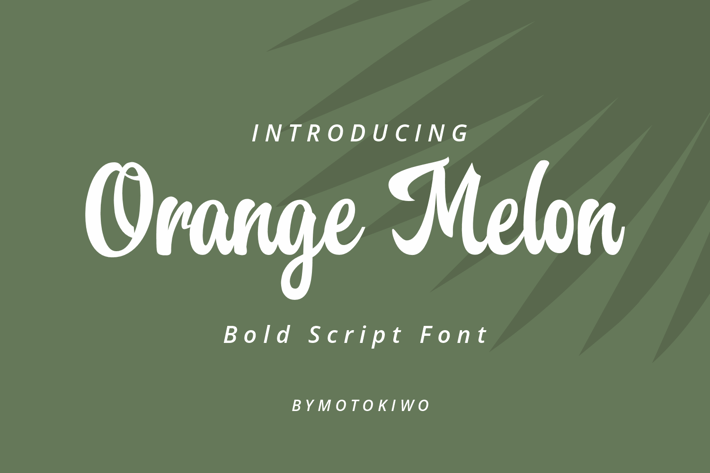
Orange Melon Script Font
Motokiwo
Orange Melon, a bold script font that is suitable for headline, logotype, apparel, invitation, branding, packaging, advertising etc. This typeface is comes in uppercase, lowercase, large range of punctuation, symbols & numerals, also support multilingual.